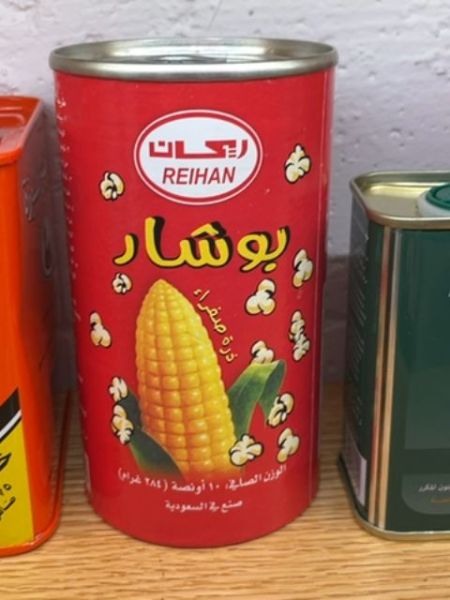
Reihan Popcorn
This product is popcorn kernels intended for popping and consumption as a snack.
Saudi Arabia
The typography utilizes bold, legible fonts with distinct Arabic script prominently displayed, complemented by an English font that is clean and modern. The font style emphasizes clarity and immediacy, enhancing the product's appeal by making the information easily accessible.
The packaging is a cylindrical tin with a vibrant red background, featuring an image of corn and popcorn to visually communicate the product inside. The branding is prominently displayed at the top of the can, providing a clear and attractive appearance.
- The product is made in Saudi Arabia.
- The packaging features both Arabic and English text.
- The product is designed for easy preparation at home.